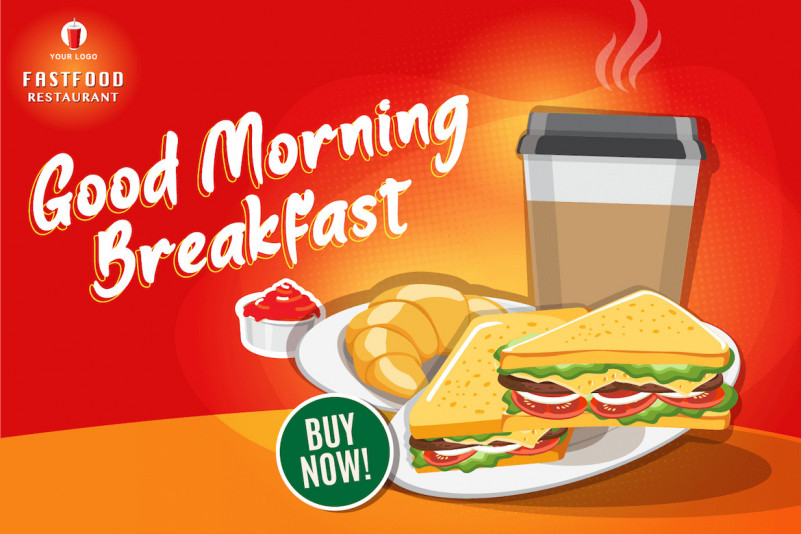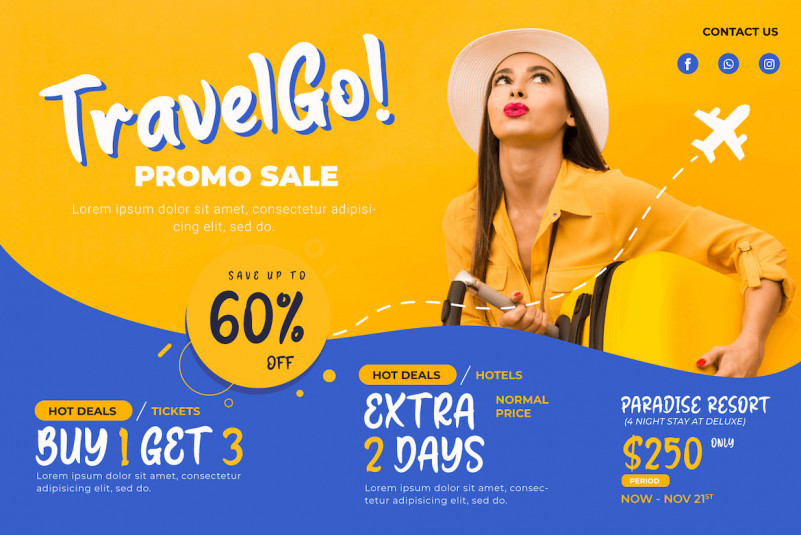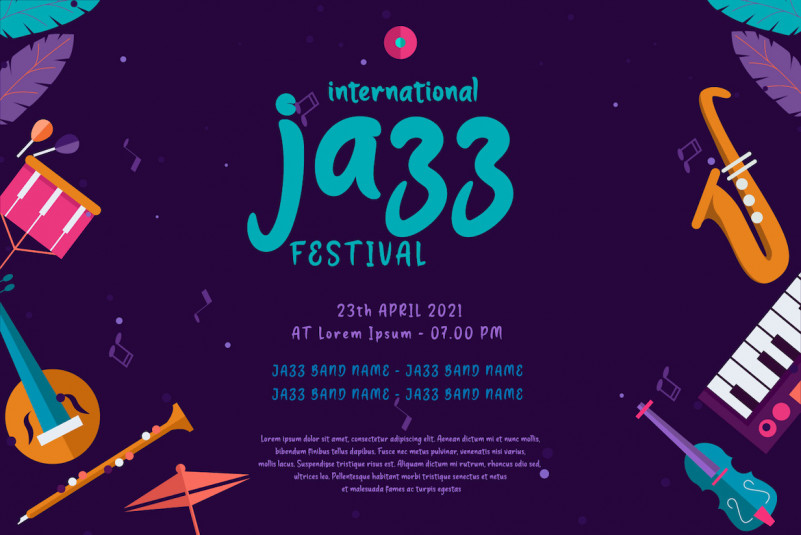
Butter Font
Butter Display Font
This font is handwritten with a natural feel, so it looks beautiful when you use it in your designs
Butter Display Font has an original and extraordinary design. This font is perfect for strong text with displays for a wide variety of branding, advertisements, posters, banners, packaging, podcasts, outdoor activities, clothing, quotes, drinks, and more.